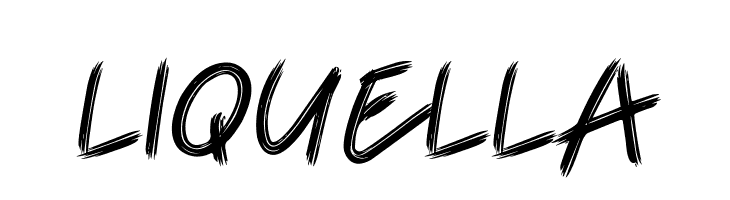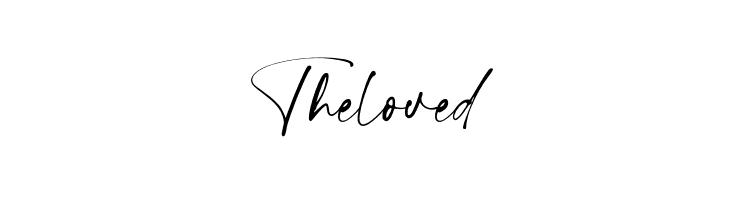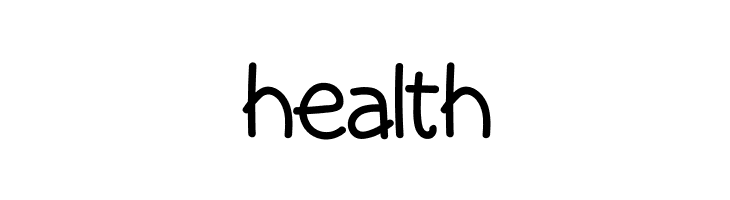
( Otto Maurer Design - Otto Maurer - www.myfonts.com/foundry/Otto_Maurer/ )
A playful, pierced outline font with a modern and decorative style.
( Otto Maurer Design - Otto Maurer - www.myfonts.com/foundry/Otto_Maurer/ )
A playful, pierced font with bold, rounded characters and a modern outline style.
( Otto Maurer Design - Otto Maurer - www.myfonts.com/foundry/Otto_Maurer/ )
A bold, italicized font with a modern, dynamic style.
( Otto Maurer Design - Otto Maurer - www.myfonts.com/foundry/Otto_Maurer/ )
A modern, geometric, and condensed font with uniform stroke width.
( Otto Maurer Design - Otto Maurer - www.myfonts.com/foundry/Otto_Maurer/ )
A modern, geometric font with thin, sleek lines and minimalist design.
( Otto Maurer Design - Otto Maurer - www.myfonts.com/foundry/Otto_Maurer/ )
A modern, italicized font with a futuristic and geometric design.
( Otto Maurer Design - Otto Maurer - www.myfonts.com/foundry/Otto_Maurer/ )
A modern, condensed font with a sleek, slanted design.
( Otto Maurer Design - Otto Maurer - www.myfonts.com/foundry/Otto_Maurer/ )
A modern, geometric font with a futuristic and structured design.
( Otto Maurer Design - Otto Maurer - www.myfonts.com/foundry/Otto_Maurer/ )
A sleek, modern font with thin, elongated characters and a futuristic style.
( Otto Maurer Design - Otto Maurer - www.myfonts.com/foundry/Otto_Maurer/ )
A bold, geometric font with a double-line outline, offering a modern and futuristic look.
( Otto Maurer Design - Otto Maurer - www.myfonts.com/foundry/Otto_Maurer/ )
A bold, geometric font with a modern and blocky style.
( Osama El Khalfaoui - osamaworks.com/ )
A sleek, geometric sans-serif font with a modern and minimalist design.
( Osama El Khalfaoui - osamaworks.com/ )
A bold, modern sans-serif font with geometric influences and excellent readability.
( Onne Hermawan )
A playful, casual handwritten font with smooth, flowing curves and expressive letterforms.
( One Design - Toni Setiawan - one-graphics.blogspot.com )
A playful, handwritten-style font with bold, dynamic characters.
( One Design - Toni Setiawan - one-graphics.blogspot.com )
A playful, artistic font blending script and sans-serif elements.
( Omer KOSE - www.omerkose.net )
A dot matrix font inspired by vintage LCD displays.
( Omen Type - Frederik Jackson )
A bold, angular font with a dynamic and aggressive style.
( Omegaville - B.J. Winzer )
A bold, pixelated font with a retro digital style.
( Omegaville - B.J. Winzer )
A pixelated, blocky font with a retro digital aesthetic.
( Omegaville - B.J. Winzer )
A modern, handwritten-style font with consistent strokes and a slight slant.
( Omegaville - B.J. Winzer )
A bold, pixelated font with a retro, edgy style.
( Omegaville - B.J. Winzer )
A bold, pixelated font with a retro digital style.
( Omegaville - B.J. Winzer )
A bold, pixelated font with a retro, video game-inspired design.
( Omegaville - B.J. Winzer )
A bold, pixelated font inspired by retro arcade games and digital displays.
( Omegaville - B.J. Winzer )
A pixelated cursive font blending classic script with retro digital aesthetics.
( Omegaville - B.J. Winzer )
A bold, geometric font with sharp angles and a modern aesthetic.
( OmegaPC777 - www.youtube.com/channel/UCc5ROnYDjc4hynqsLFw4Fzg/ )
A pixelated, retro-style font inspired by early digital displays.
( Omar Mogollón-Alagunna - twitter.com/alagunna )
A whimsical, eerie font with a hand-drawn, vintage circus style.
( Olly Wood - cargocollective.com/ollywood )
A bold, geometric font with sharp angles and a modern style.
( Olivier Langlois )
A playful, handwritten font with smooth, rounded edges and a casual style.
( OldStudioo - Muhammad Ilham - www.fontdraft.com )
A slanted, cursive font with elegant curves and a sophisticated style.
( OldStudioo - Muhammad Ilham - www.fontdraft.com )
A graceful, handwritten script font with elegant, flowing lines.
( OldStudioo - Muhammad Ilham - www.fontdraft.com )
A modern, elegant script font with flowing, cursive strokes and dramatic flourishes.
( OldStudioo - Muhammad Ilham - www.fontdraft.com )
An elegant, flowing script font with a handwritten style.